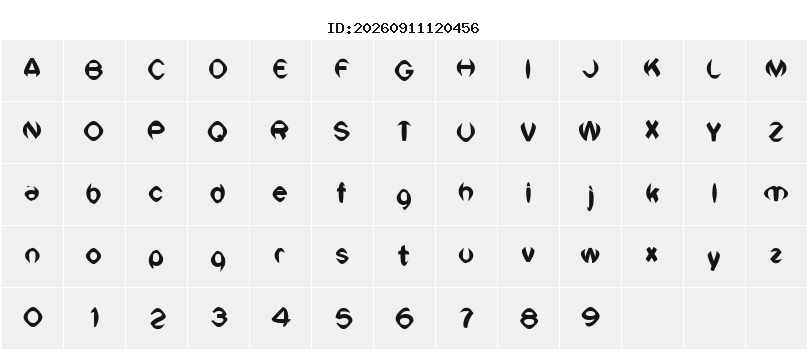
VTC SikleCell Preview
• Font Name: VTC SikleCell
• Designer: WolfBainX
About VTC SikleCell.ttf
VTC SikleCell.ttf is a modern, elegant sans-serif font designed for ultimate readability and visual harmony. Perfect for branding, headlines, web design, and print materials.